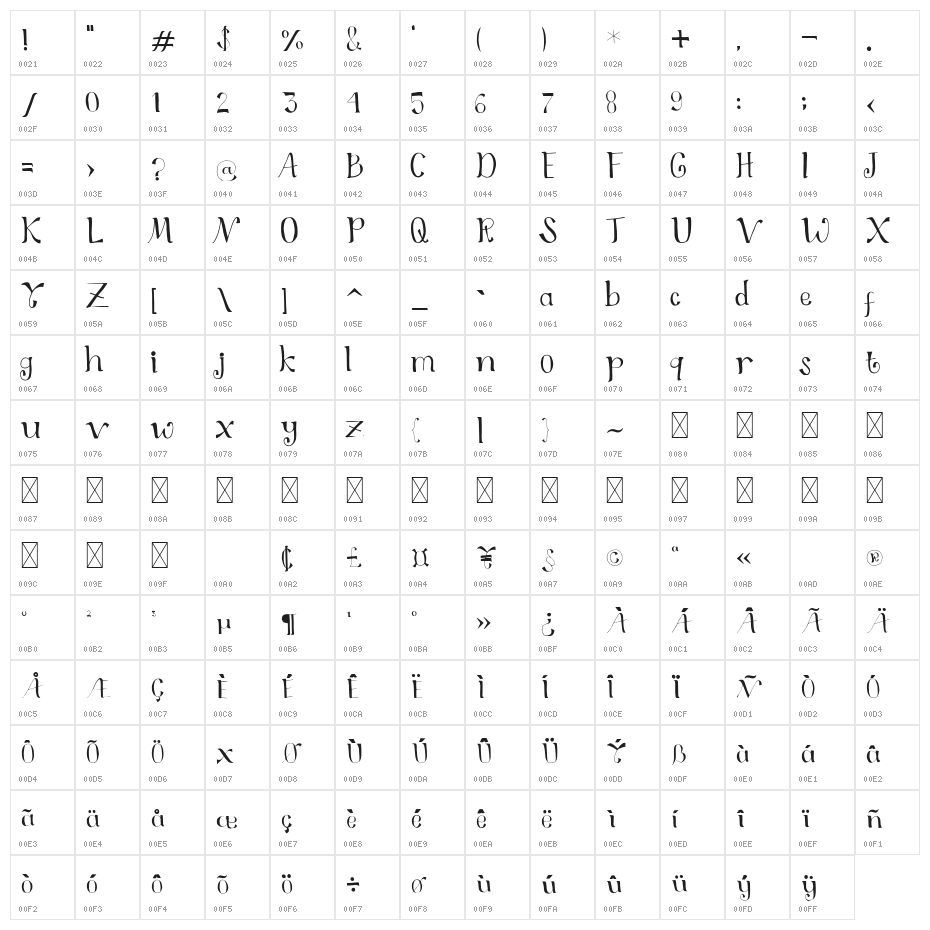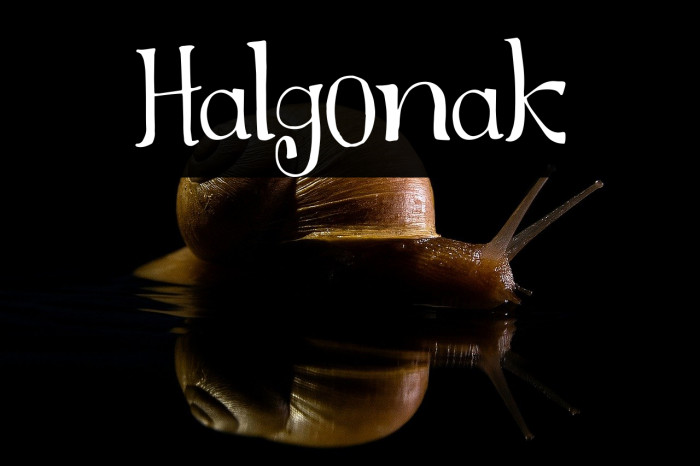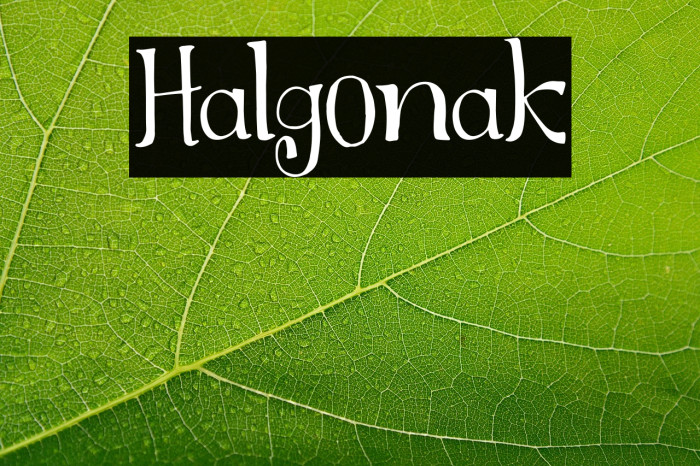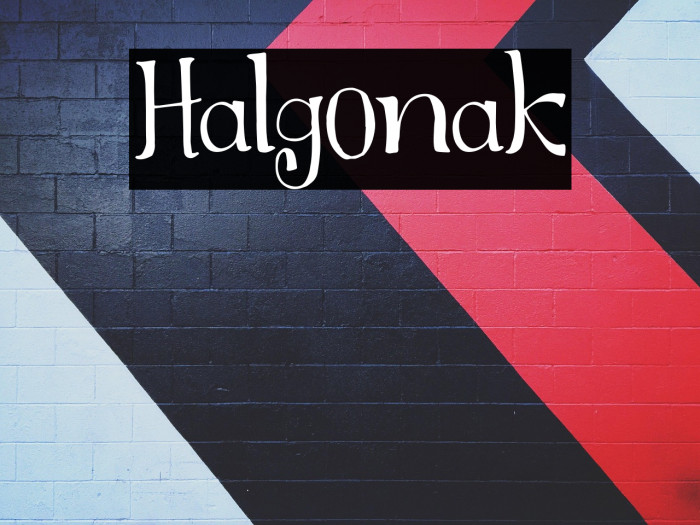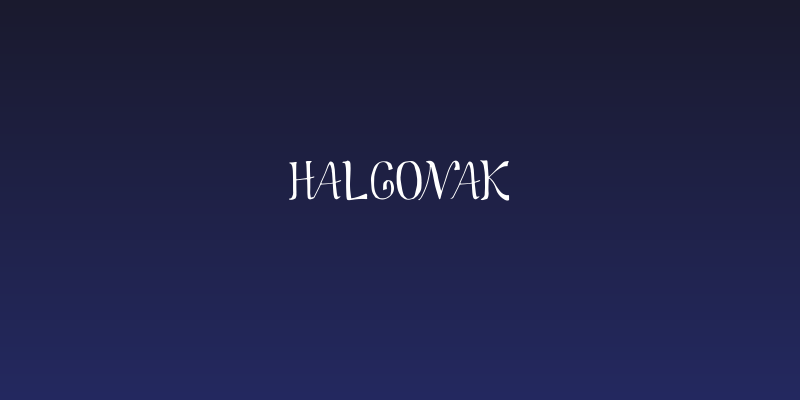
Halgonak Font
Halgonak Description
This font features a playful and whimsical design, characterized by its unique and artistic letterforms. The uppercase letters exhibit a blend of bold strokes and delicate curves, creating a dynamic and lively appearance. The lowercase letters maintain this playful style, with some characters incorporating loops and swirls that add to the font's charm. The numbers are equally distinctive, with varying stroke widths that contribute to the overall quirky aesthetic. Special characters are designed with the same attention to detail, ensuring consistency across the font. This font is ideal for projects that require a touch of creativity and fun.
| Use Case | Logos, Headlines, Creative projects |
| Proposed Projects | Ideal for children's books, playful branding, creative posters, and artistic invitations. |